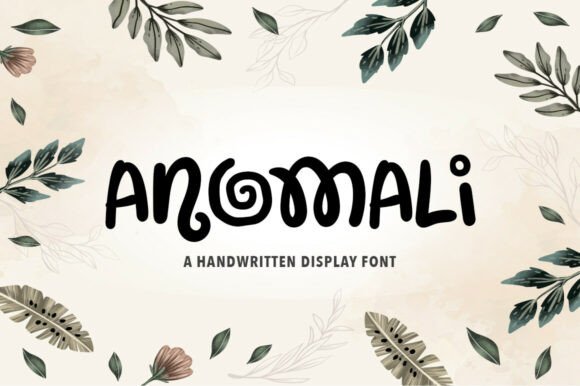
Introducing Anomali Font: A Playful and Creative Handwritten Display Font
Are you tired of using the same old fonts for your designs? Look no further than Anomali Font, a playful, creative, and highly expressive handwritten display font that’s sure to add a unique twist to your visual storytelling. With its thick, confident strokes and whimsical, swirling flourishes, Anomali is the perfect choice for designers and crafters looking to add a touch of personality to their work.
The Unique Characteristics of Anomali Font
Anomali Font is characterized by its bold, rounded structure, which ensures excellent legibility while maintaining an artisanal, hand-drawn charm. The font features thick, confident strokes that give it a sense of confidence and playfulness. But what really sets Anomali apart is its whimsical, swirling flourishes, most notably the hypnotic spiral integrated into the lowercase ‘o’. This unique feature adds a touch of magic to any design, making it truly one-of-a-kind.
The Perfect Choice for Creative Projects
Anomali Font is an exceptional choice for a variety of creative projects, including children’s book titles, quirky branding identities, creative workshop posters, and standout social media graphics. Its playful and friendly aesthetic makes it perfect for designs that need to appeal to a younger audience, while its bold and confident strokes ensure that it will stand out in any context.
Adding a Touch of Whimsy to Your Designs
One of the things that sets Anomali Font apart from other fonts is its ability to add a touch of whimsy to any design. The font’s playful, swirling flourishes and bold, rounded structure make it perfect for designs that need to be fun and engaging. Whether you’re designing for a fun boutique or an imaginative educational project, Anomali Font is the perfect choice.
Key Features of Anomali Font
- Playful and creative: Anomali Font is a highly expressive handwritten display font that’s perfect for adding a unique twist to your visual storytelling.
- Thick, confident strokes: The font features thick, confident strokes that give it a sense of confidence and playfulness.
- Whimsical, swirling flourishes: Anomali Font features whimsical, swirling flourishes, most notably the hypnotic spiral integrated into the lowercase ‘o’.
- Excellent legibility: The font’s bold, rounded structure ensures excellent legibility while maintaining an artisanal, hand-drawn charm.
- Perfect for creative projects: Anomali Font is an exceptional choice for children’s book titles, quirky branding identities, creative workshop posters, and standout social media graphics.
Tips for Using Anomali Font
Here are a few tips for using Anomali Font in your designs:
- Use it for headlines: Anomali Font is perfect for headlines and titles, where its bold and confident strokes can really make an impact.
- Experiment with colors: The font’s playful and whimsical nature makes it perfect for experimenting with different colors and textures.
- Pair it with other fonts: Anomali Font can be paired with other fonts to create a unique and interesting contrast.
- Use it for branding: The font’s quirky and playful nature makes it perfect for branding and advertising, where it can help to create a fun and engaging identity.
In conclusion, Anomali Font is a playful, creative, and highly expressive handwritten display font that’s perfect for designers and crafters looking to add a unique twist to their visual storytelling. With its thick, confident strokes and whimsical, swirling flourishes, Anomali is the perfect choice for a variety of creative projects, from children’s book titles to quirky branding identities. So why not give it a try and see how it can add a touch of magic to your designs?